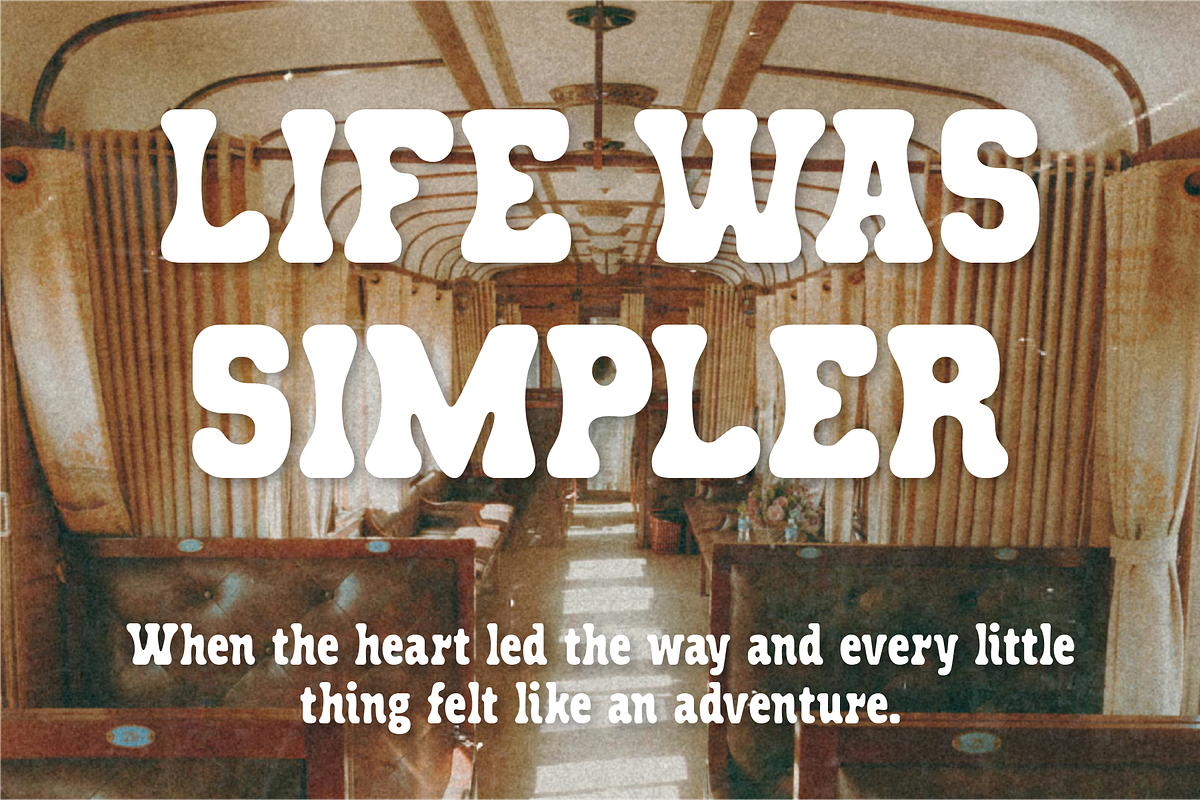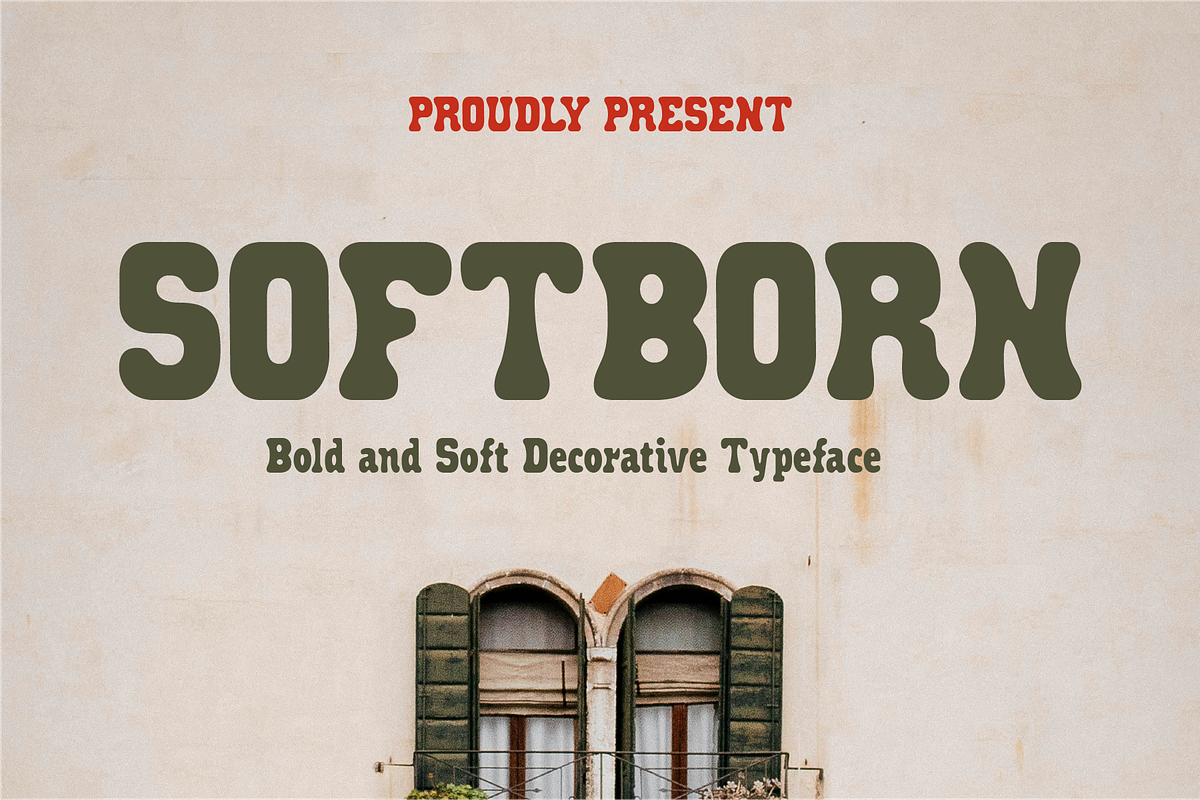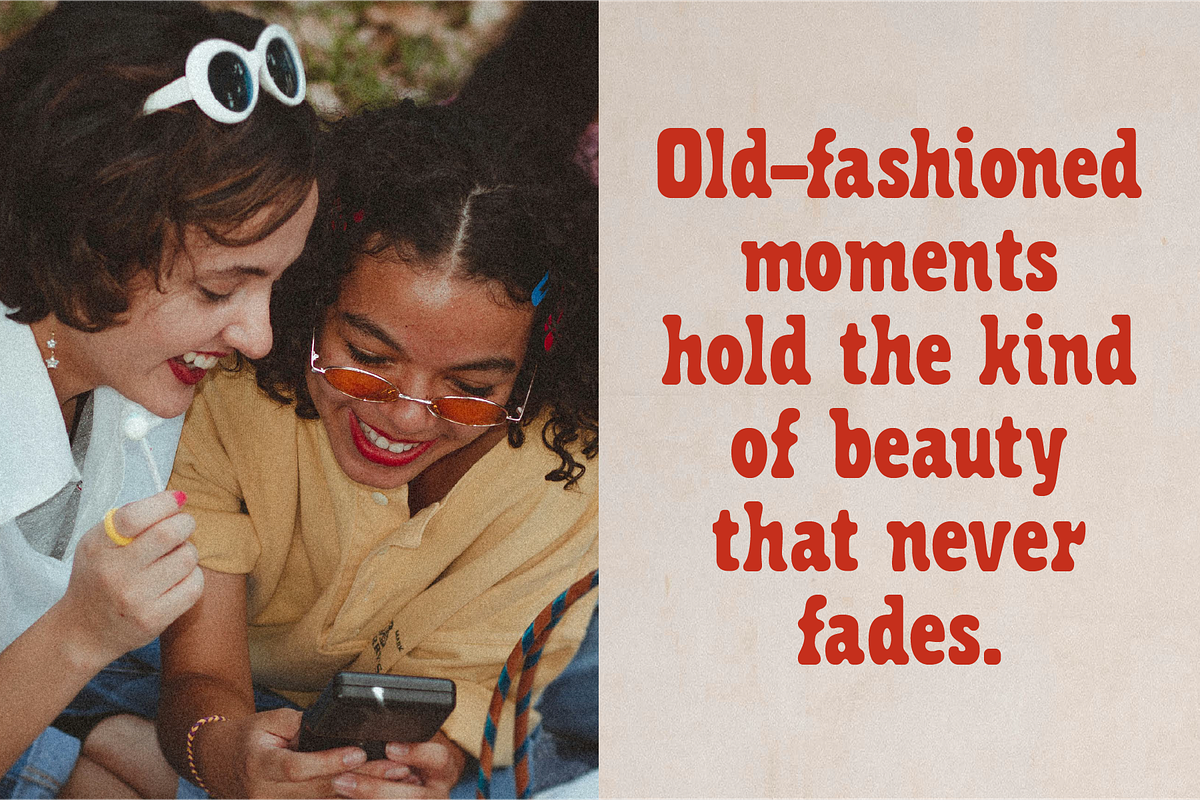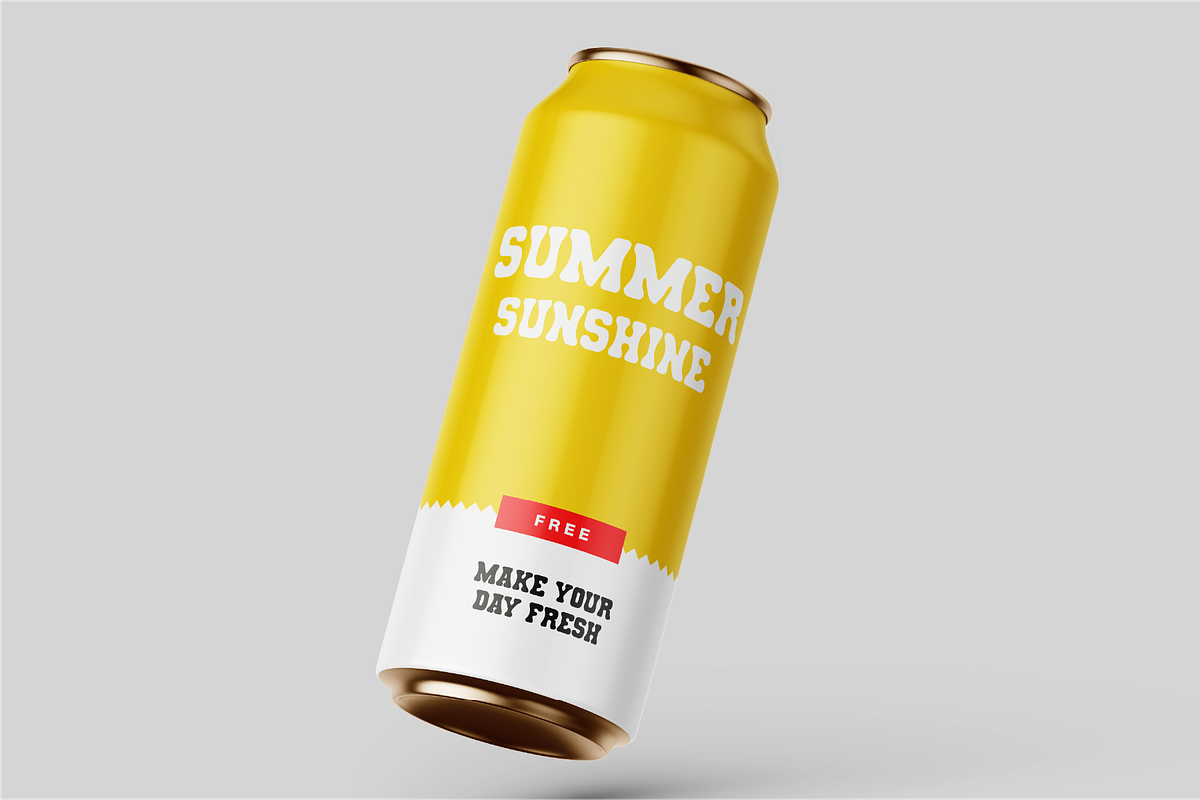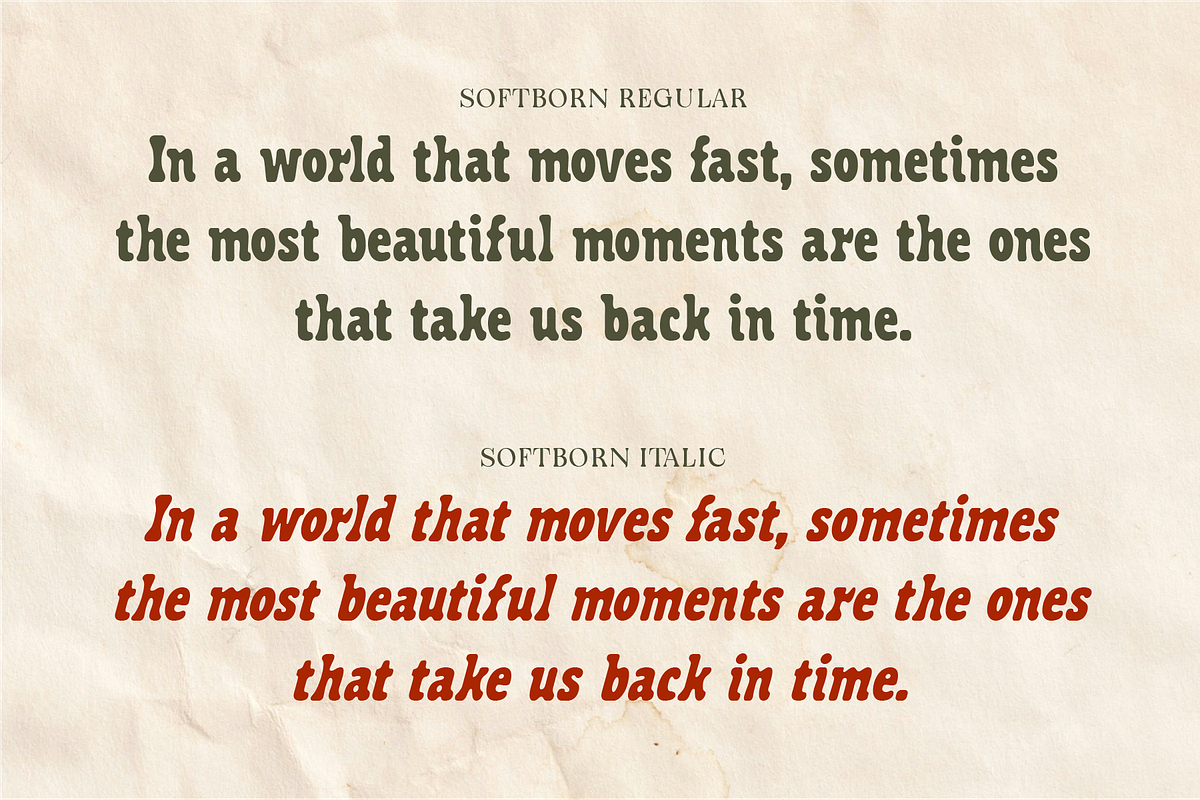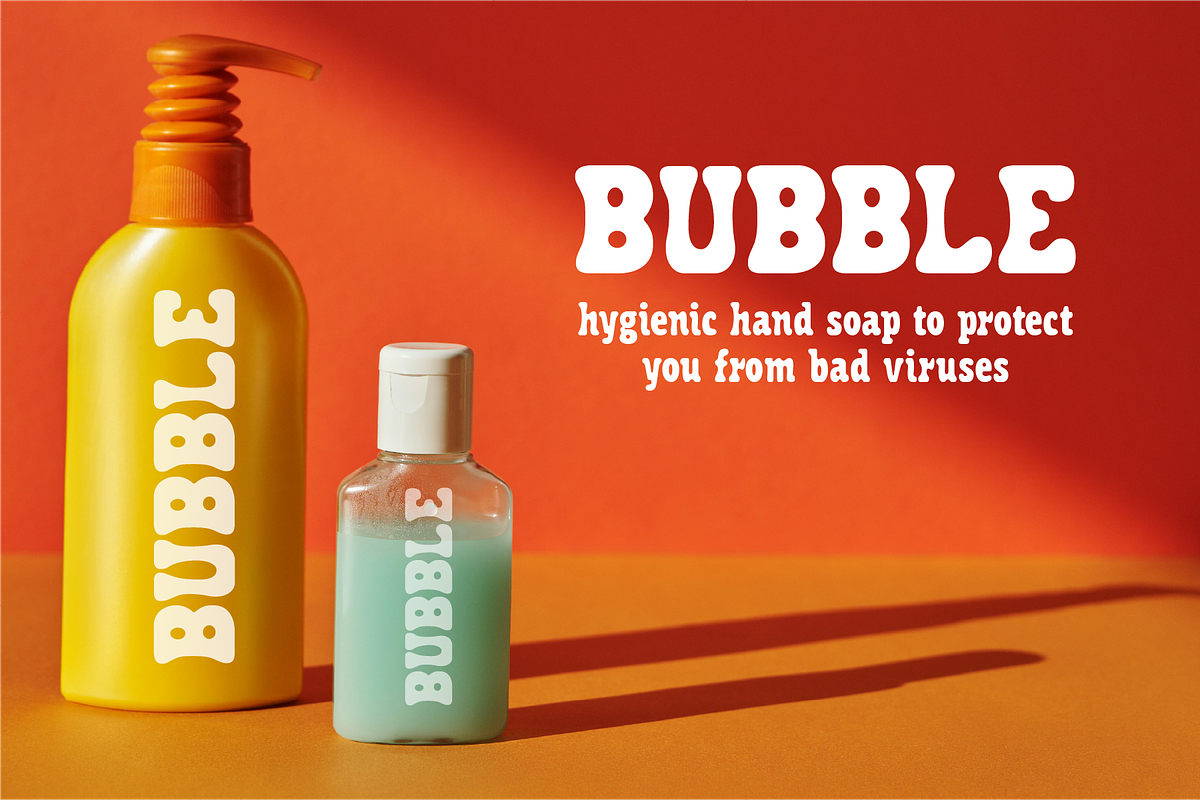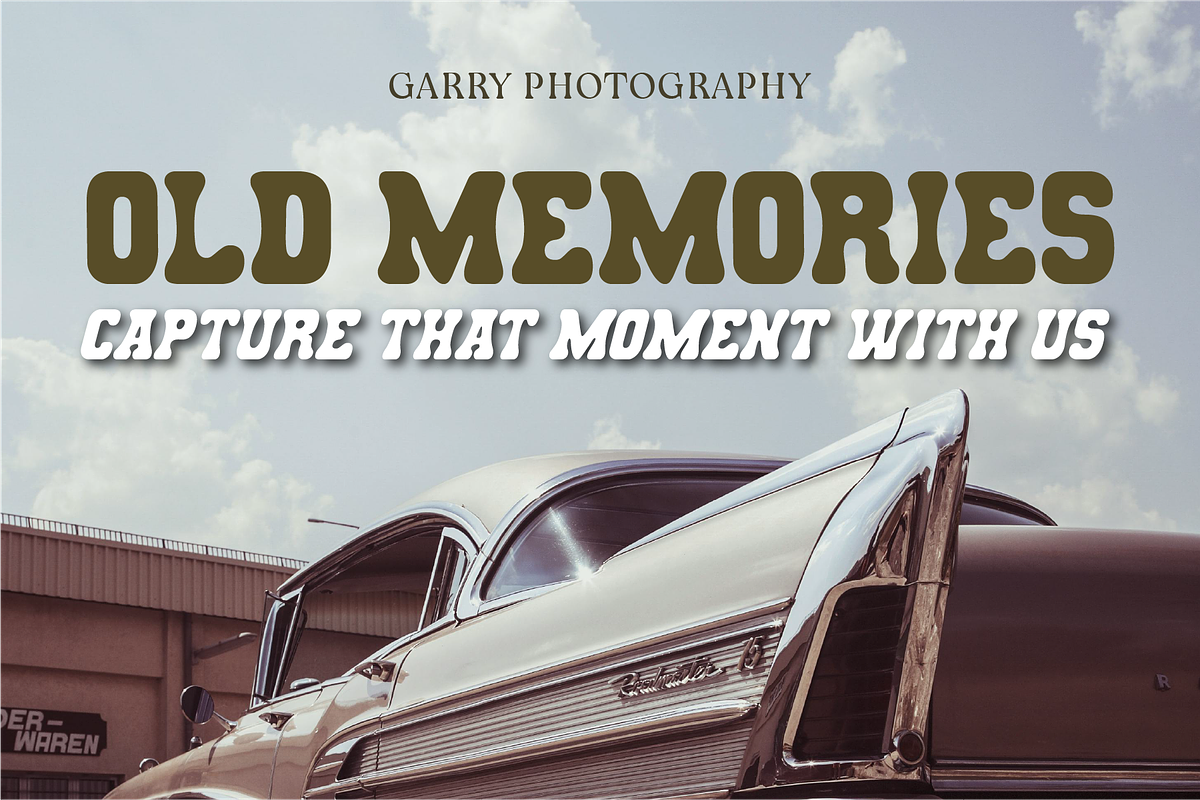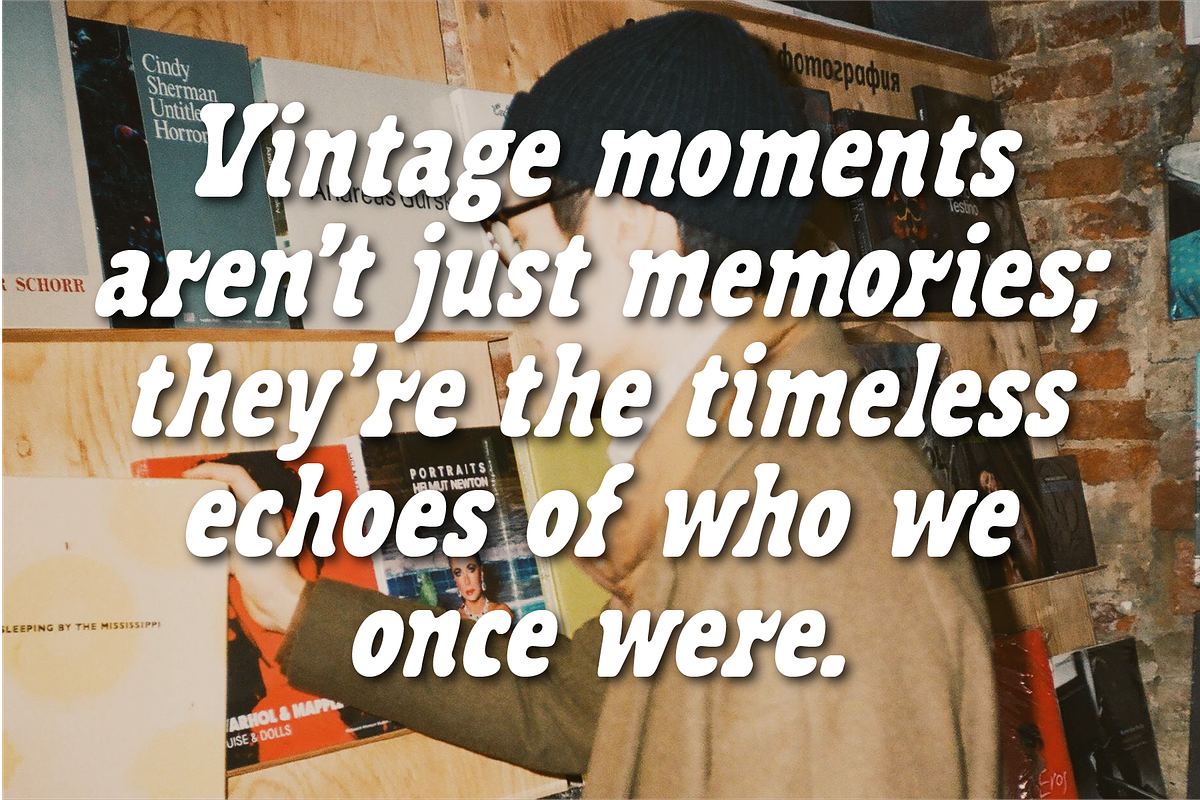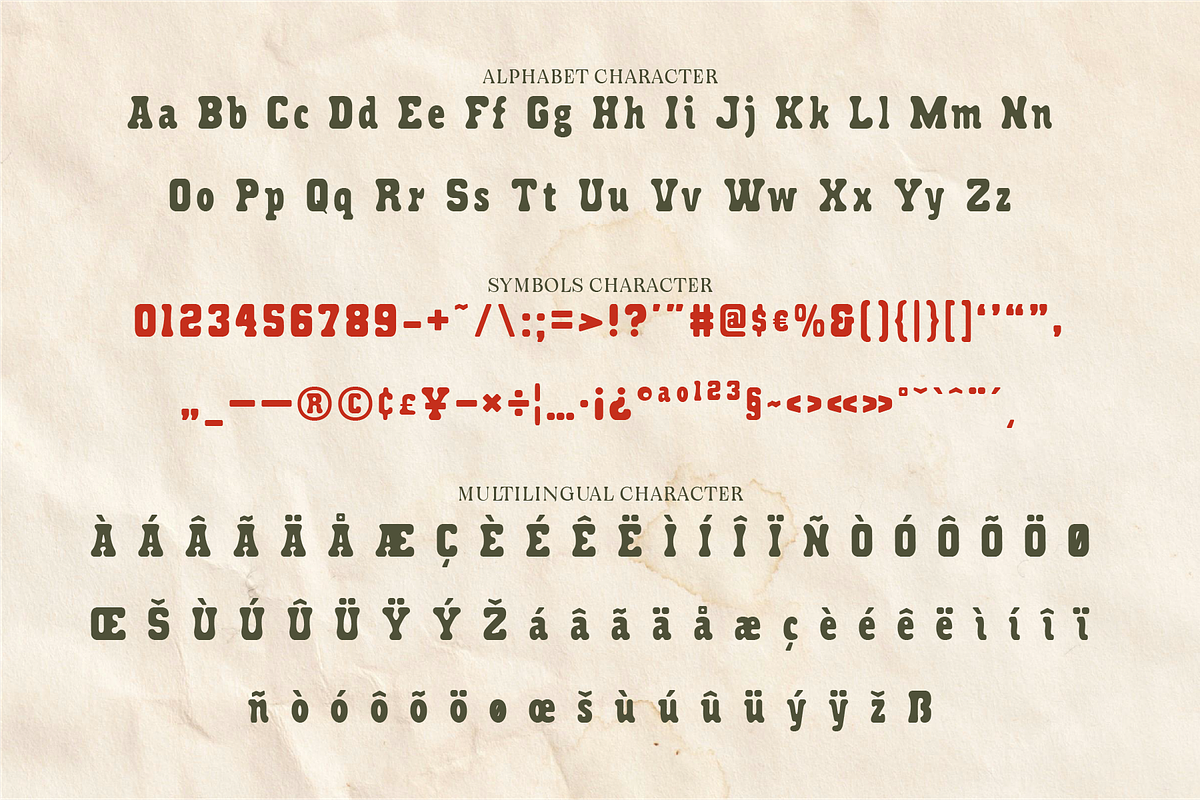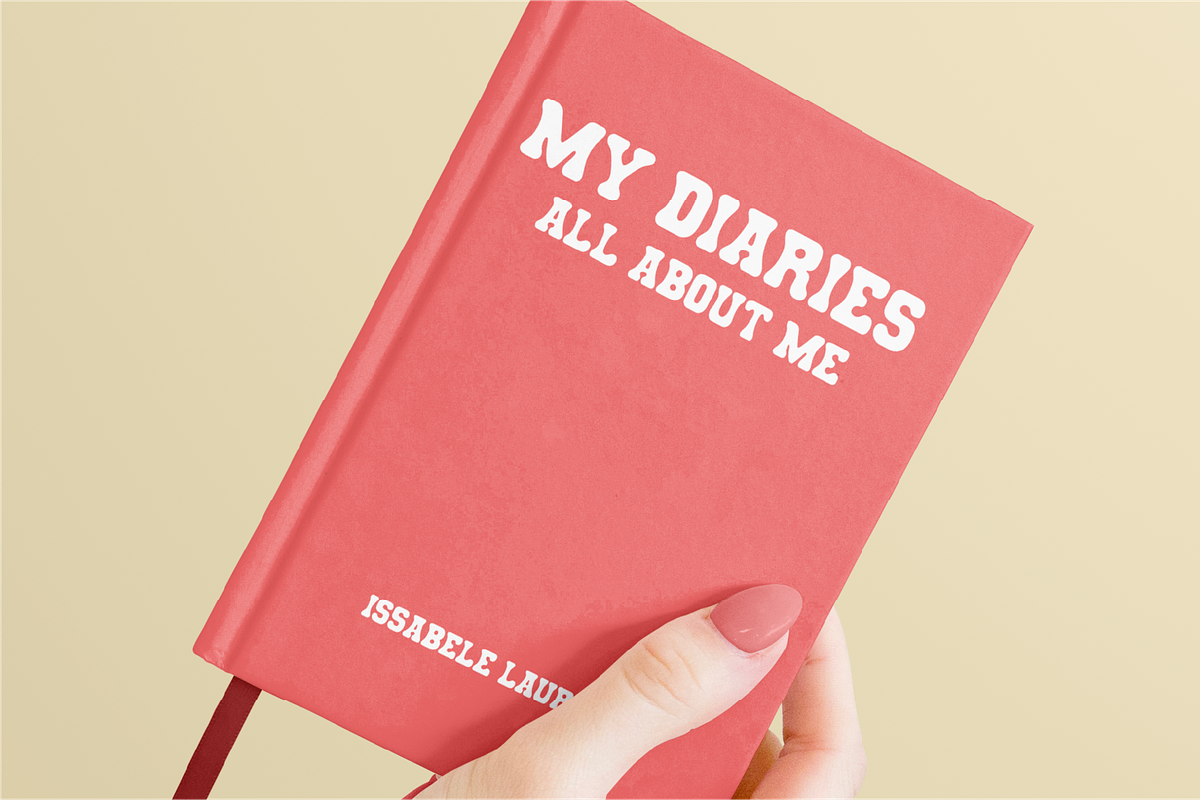
Softborn - Round Slab Serif
Softborn a bold yet gentle decorative typeface that strikes a perfect balance between strength and warmth. With its soft, rounded edges and thick letterforms, Softborn exudes a retro-inspired charm while remaining highly versatile for modern design applications. Perfect for branding, posters, packaging, or headlines, this typeface commands attention while maintaining a friendly and approachable feel. Its unique blend of boldness and softness makes it a standout choice for creative projects that need a touch of nostalgia and personality.